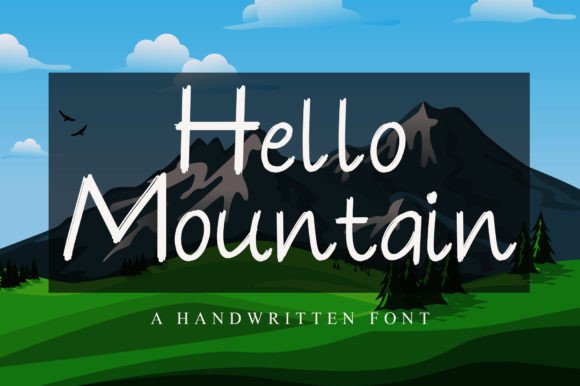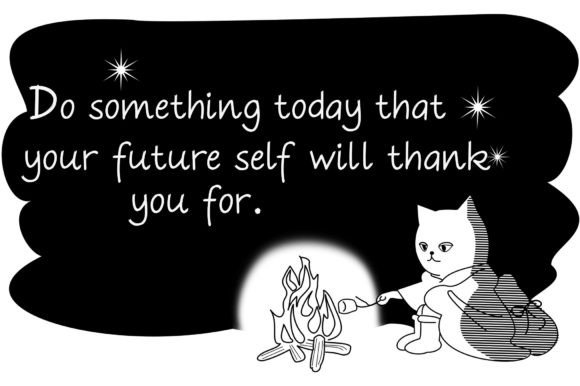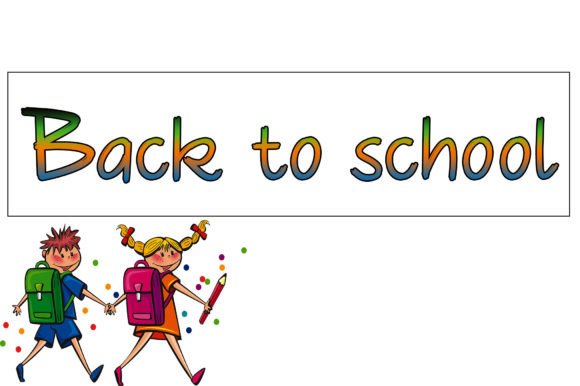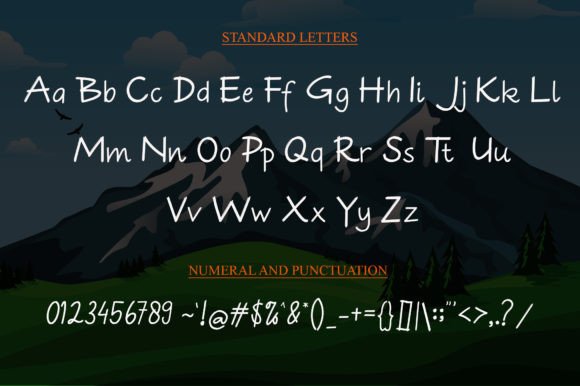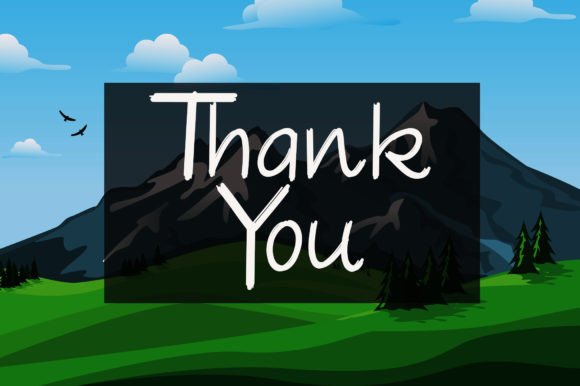
About Hello Mountain Font
“Hello Mountain” is a classic handwritten font that exudes timeless charm and versatility. With its clean and straightforward script style, this font offers a wide range of applications, making it a versatile choice for various design projects.
The appeal of “Hello Mountain” lies in its ability to add a sweet and welcoming touch to your designs. Whether you’re working on greeting cards, kids’ crafts, invitations, posters, or any project that requires a warm and friendly font, “Hello Mountain” is the typeface that can enhance your work.
This font’s classic and approachable style ensures that your projects not only look inviting but also effectively convey your message to your audience.
Embrace “Hello Mountain” with enthusiasm and discover how it brings a classic handwritten charm to your creative projects, making them both visually appealing and endearing, regardless of the context or application.